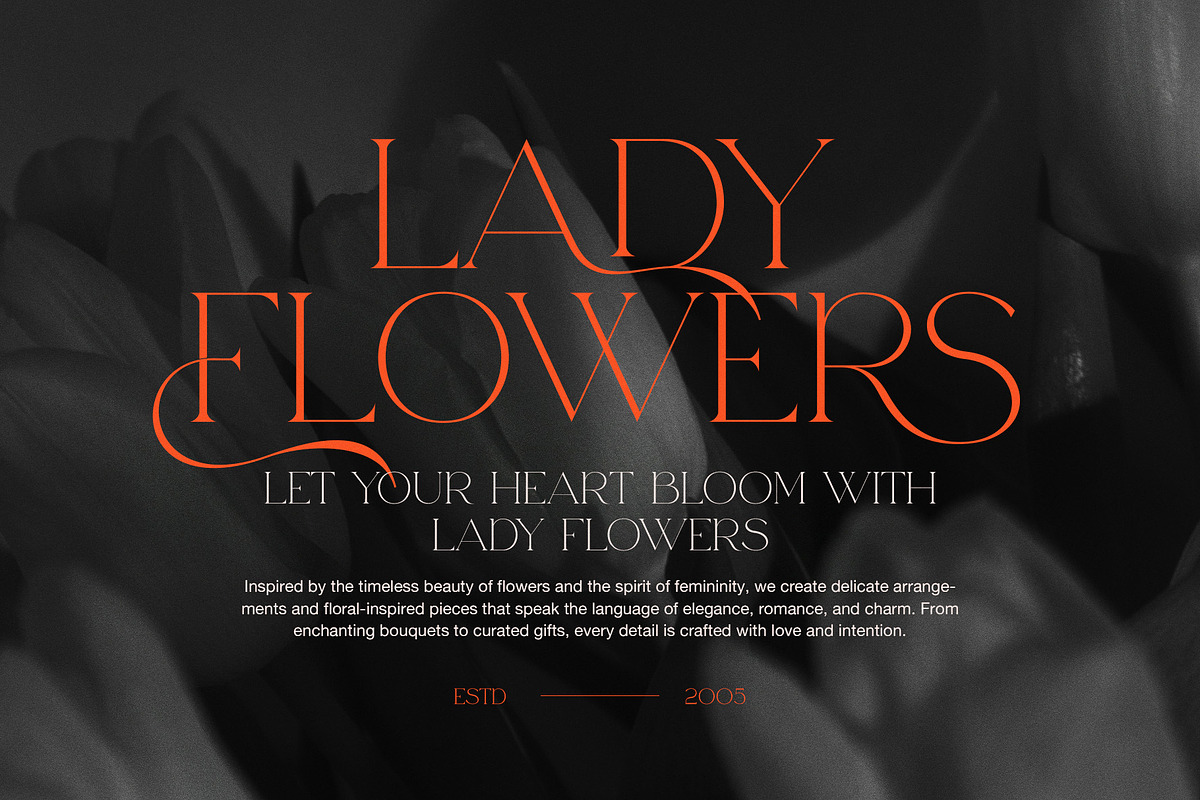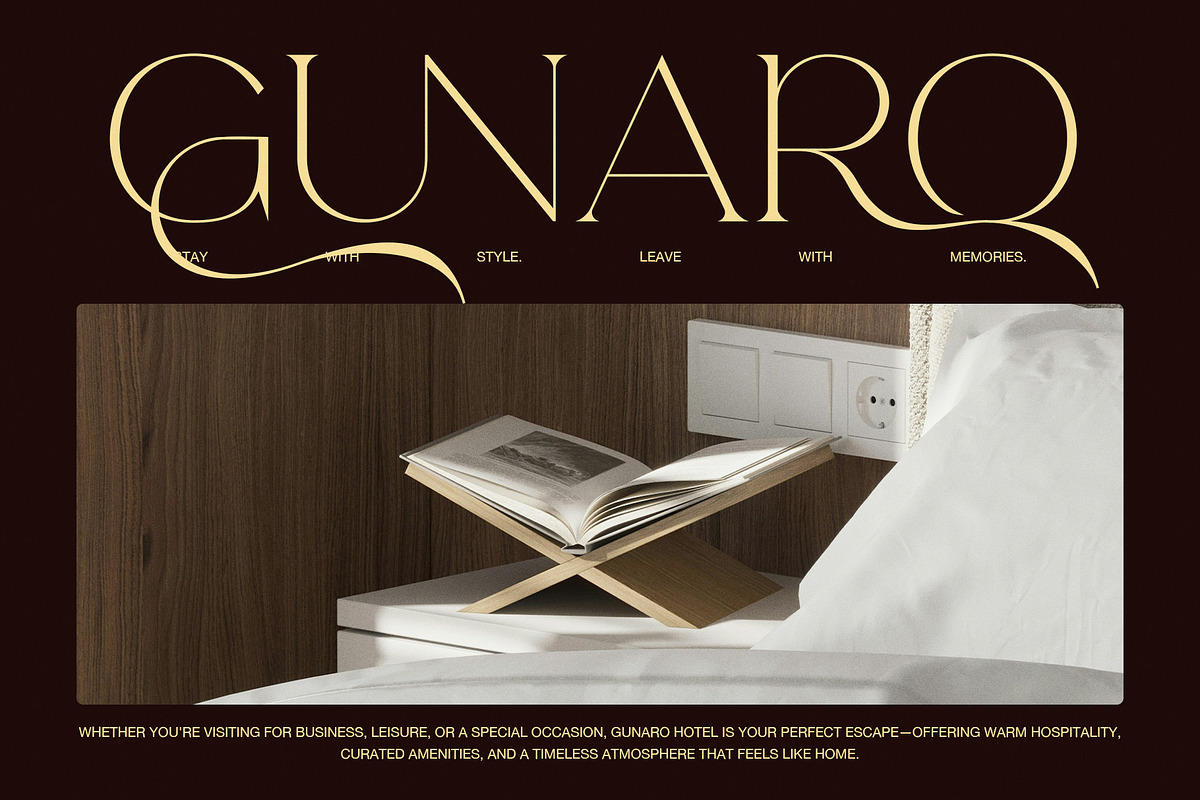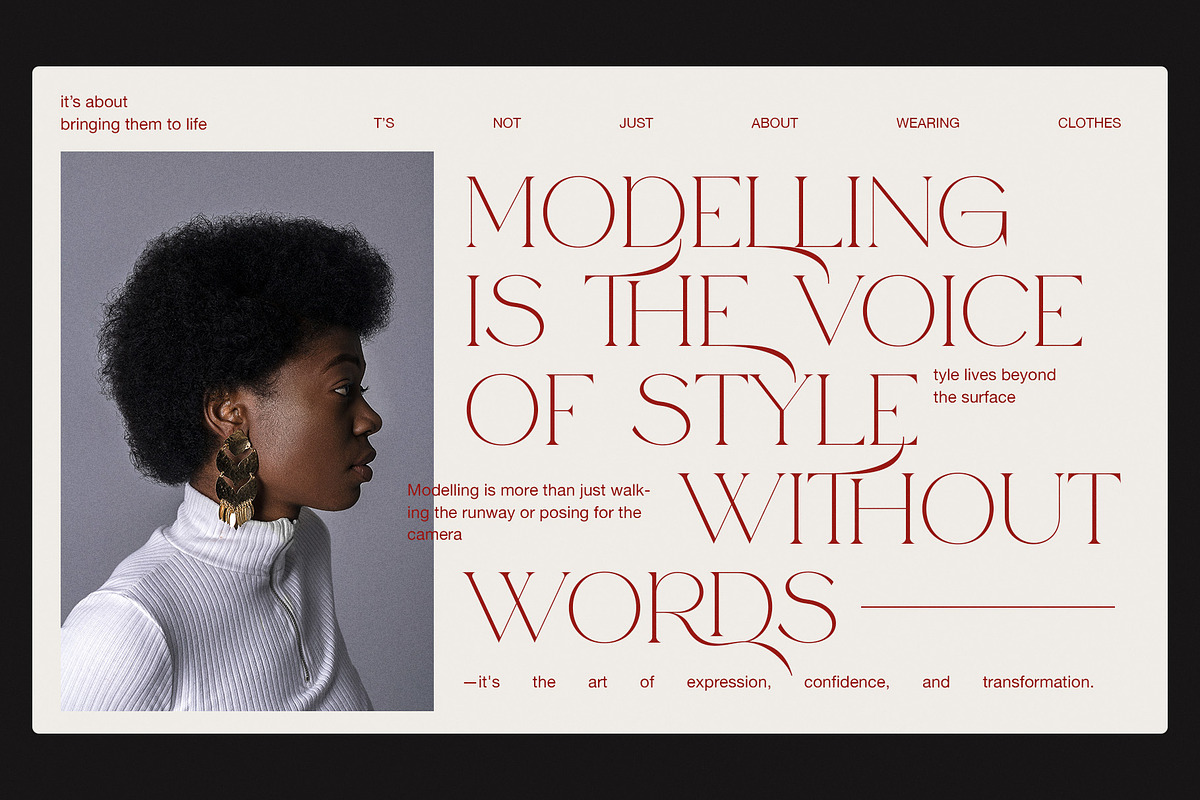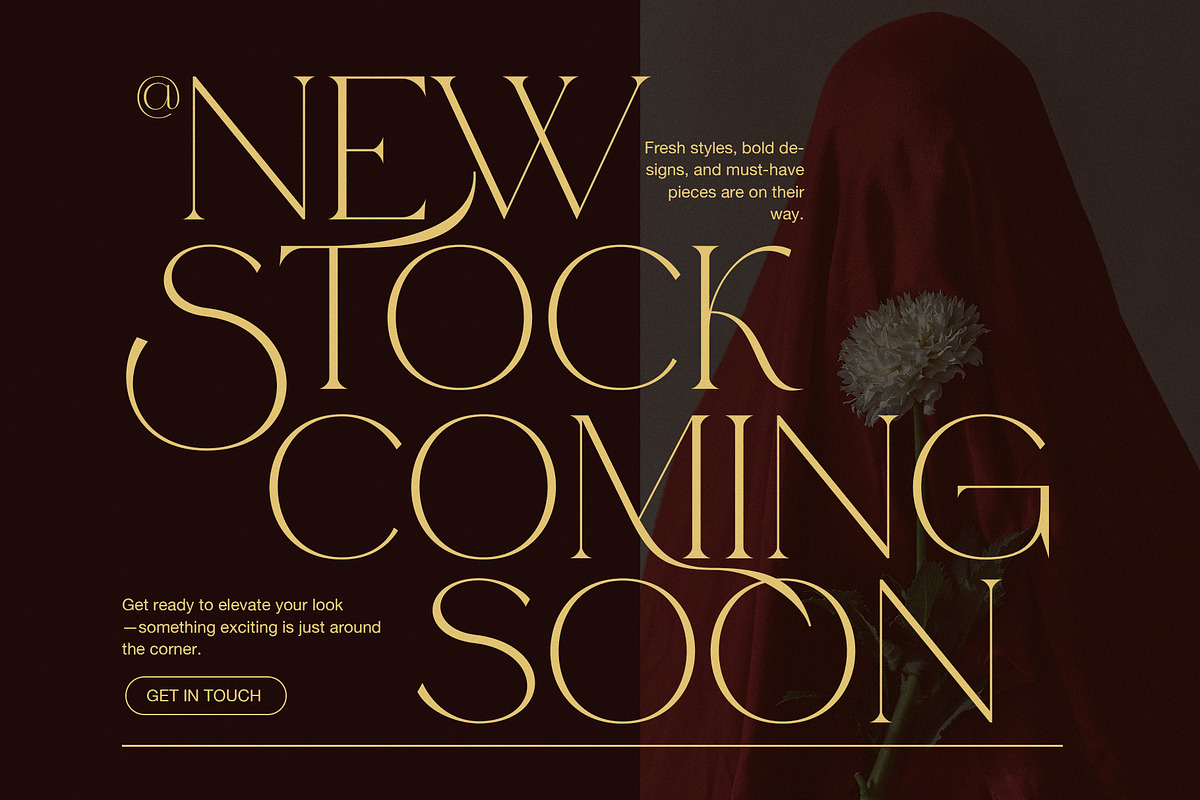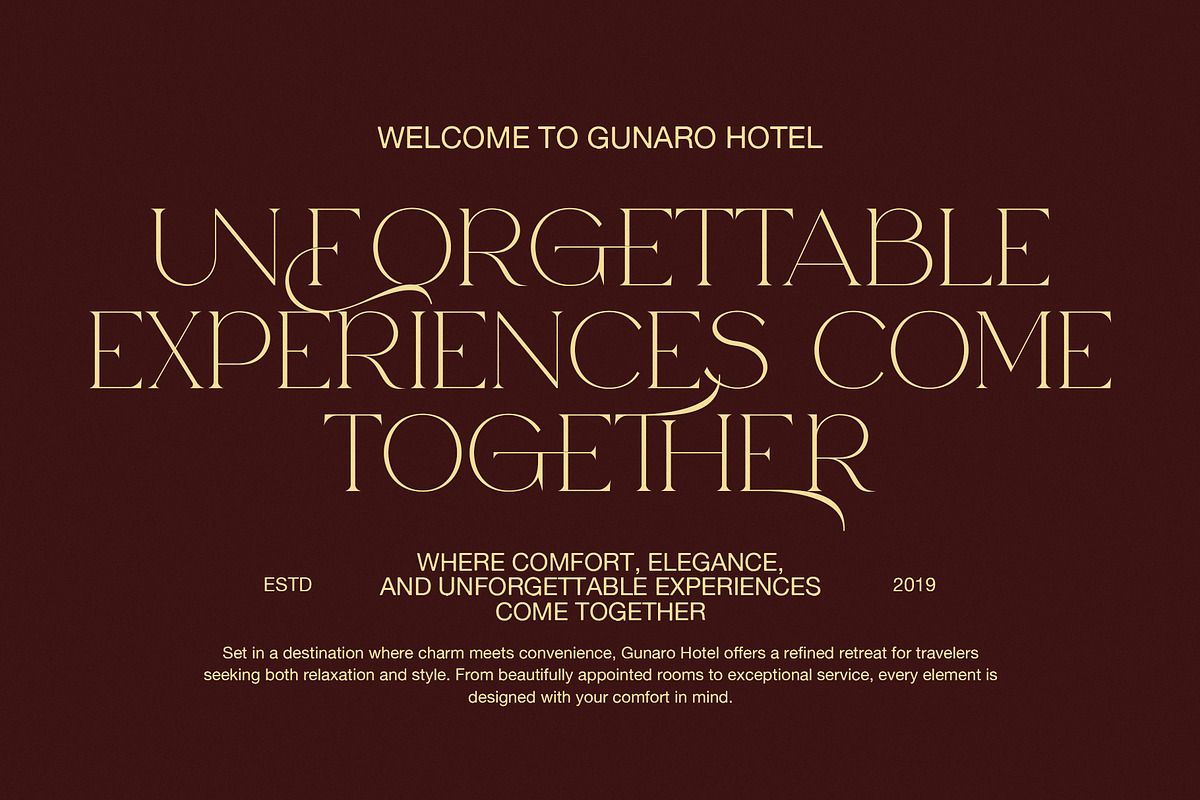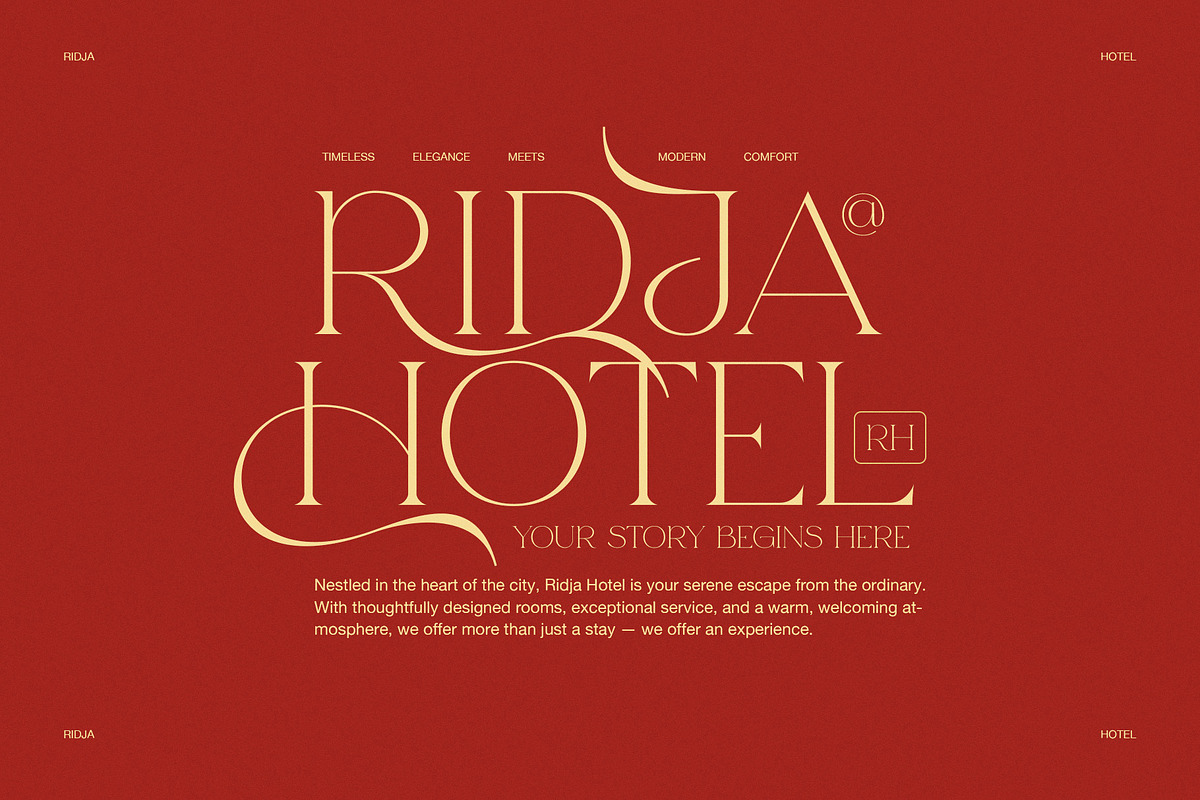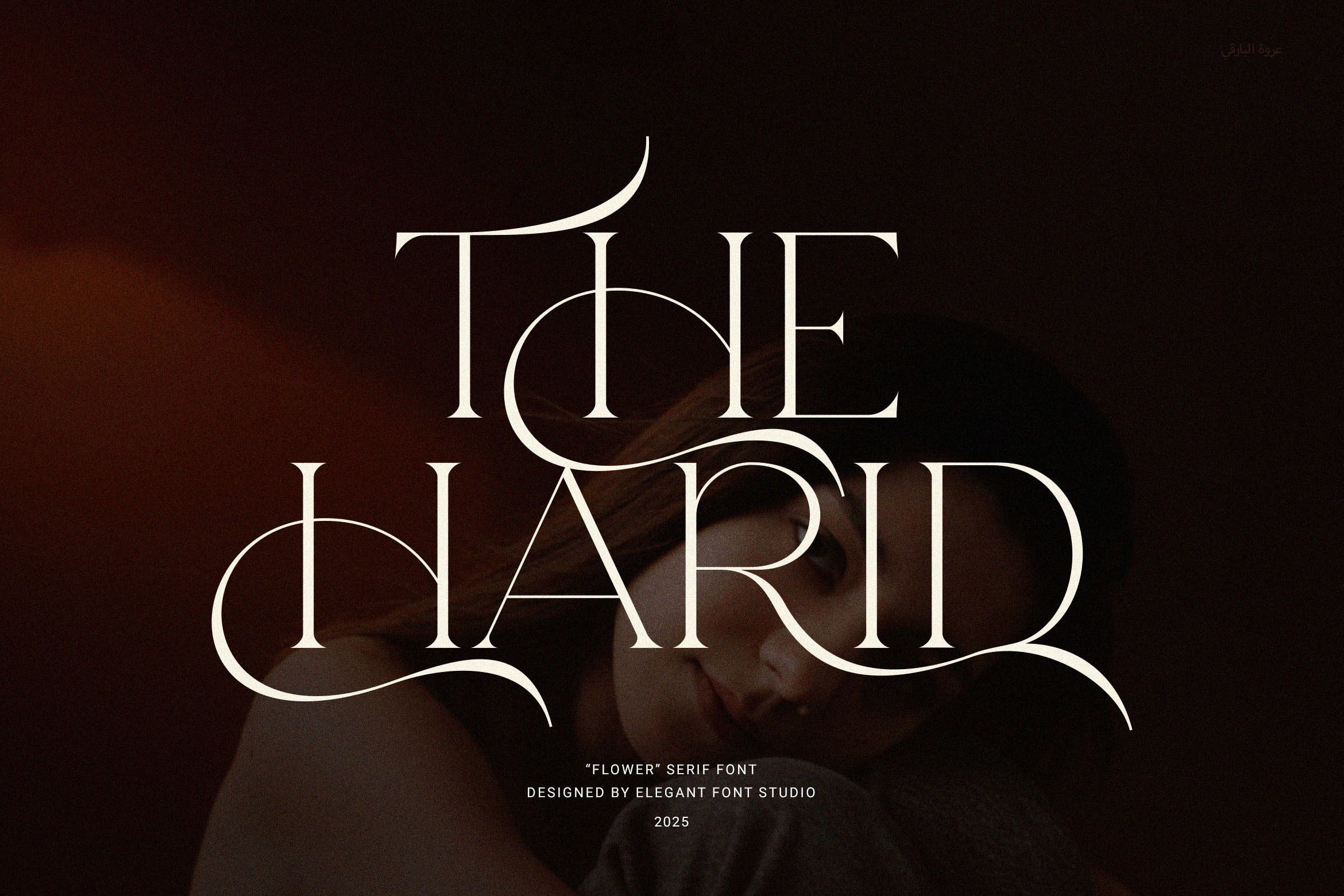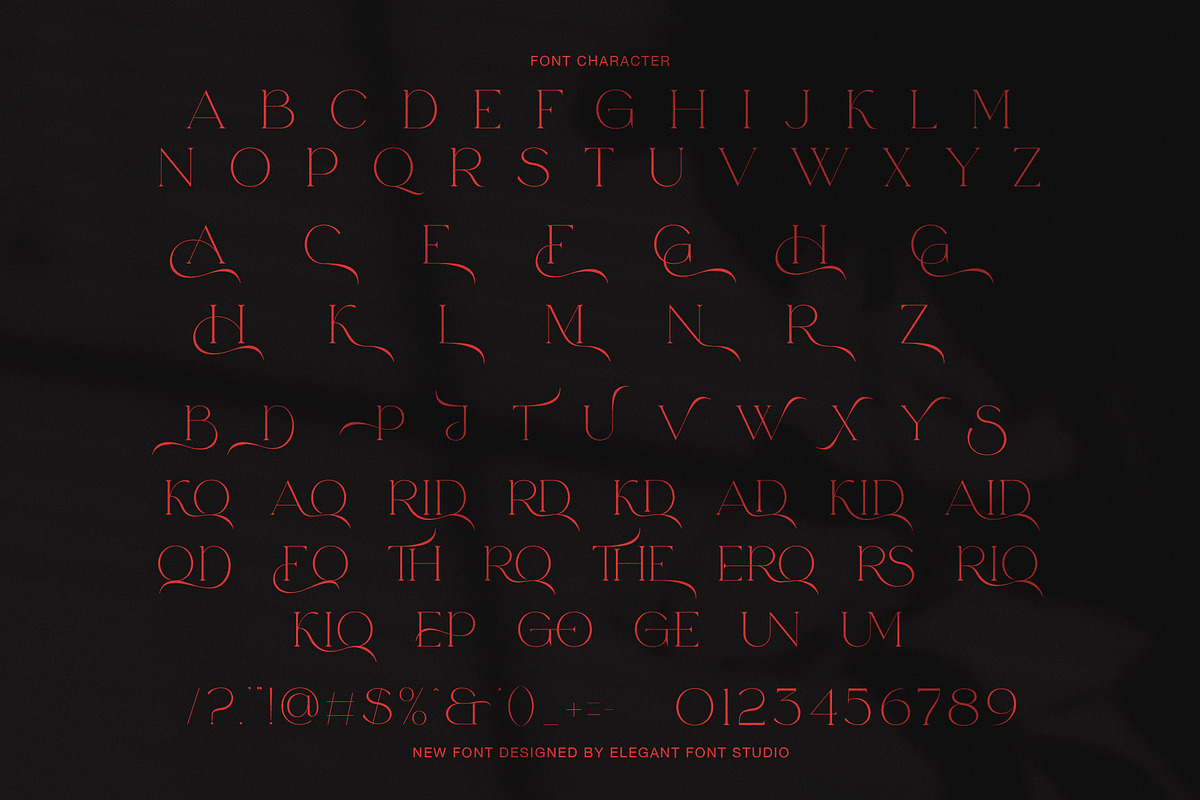
The Harid Elegant Serif Font
The Harid Elegant Serif Font is a modern serif typeface created for stylish, professional branding. It features clean lines, balanced shapes, and elegant curves that bring sophistication to any design.
This font includes functional ligatures that help your text flow more smoothly. Because of its refined look and strong readability, The Harid works well for both print and digital projects.
Whether you're working on a logo, website, product label, magazine, or packaging, The Harid adds a premium feel. It’s especially useful for fashion, food, boutique, and editorial designs. At the same time, it maintains clarity—making it ideal for marketing and brand identity.
You can use The Harid in many settings:
Logos and brand kits
Web headers and UI design
Product packaging
Magazines and editorials
Advertising or social media
Since it blends modern elegance with timeless style, it fits well in creative and corporate work alike. In fact, The Harid was designed with business and commercial use in mind.
If you’re looking for a font that’s beautiful, versatile, and easy to use, The Harid is a great choice. It adds class to every word without being overwhelming. Plus, its smooth ligatures and stylish form elevate any layout.